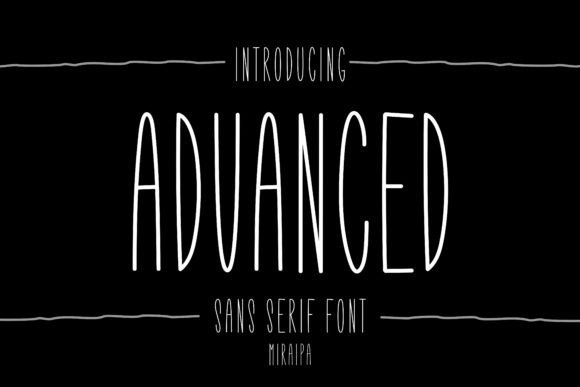
Unlock the Power of Whimsy with Advanced Font
Enter the Advanced Font, a delightful handwritten sans serif font designed to bring a friendly and approachable vibe to your projects. Whether you’re crafting a DIY wedding invitation, designing a children’s clothing line, or creating a social media post, this font is the perfect addition to your toolkit. Its versatility and charm make it a valuable asset for designers looking to add an extra layer of emotion and connection to their work.
Advanced Font Key Features
• High-Resolution Display: Designed for high-resolution displays, Advanced Font ensures crisp and clear text rendering at resolutions up to 4K (3840 x 2160 pixels).
• Advanced Ligatures and Swashes: Unique ligature and swash combinations provide a professional and elegant touch to your text, setting Advanced Font apart from other fonts.
• Optimized for Digital Use: Advanced Font is optimized for digital use, making it ideal for web, mobile, and e-book applications.
Designer Review: Advanced Font
Overall, I was impressed with the Advanced Font package. The clean design and wide range of styles made it easy to integrate into my projects. ✨
• Highly customizable: The font can be easily modified to fit different design styles and branding.
• Wide range of weights: From light to bold, the font has a comprehensive set of weights to choose from.
• Smooth readability: The font is designed for optimal readability, making it perfect for body text.
• Great for digital use: The font is optimized for screens, making it perfect for websites, apps, and digital products.
• May not be suitable for print: While the font is optimized for digital use, it may not be the best choice for print materials.
• Not as unique as some other fonts: While the font is well-designed, it may not stand out from the crowd.
• Some compatibility issues: I experienced some compatibility issues with certain software and operating systems.
I would recommend the Advanced Font package to designers who are looking for a versatile and easy-to-use font. While it may have some limitations, the benefits far outweigh the drawbacks. With a little creativity and customization, this font can be a great addition to any design project. ⚠️
Advanced Font: A Practical Application Guide
Tips for Getting the Most Out of Advanced Font
Use Advanced Font to create visually appealing headings and titles. Experiment with different font styles and sizes to create contrast and hierarchy in your design. Also, use Advanced Font to add emphasis to important text, such as calls-to-action or key statistics.
Advanced Font is commonly used in:
• Marketing materials, such as brochures and flyers
• Presentations, such as PowerPoint and Keynote
• Web design, such as website headers and footers
• Print design, such as business cards and posters